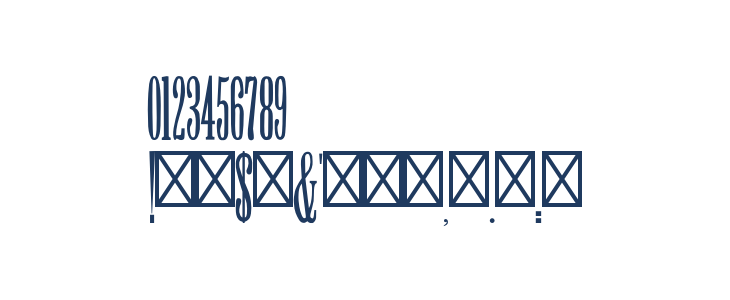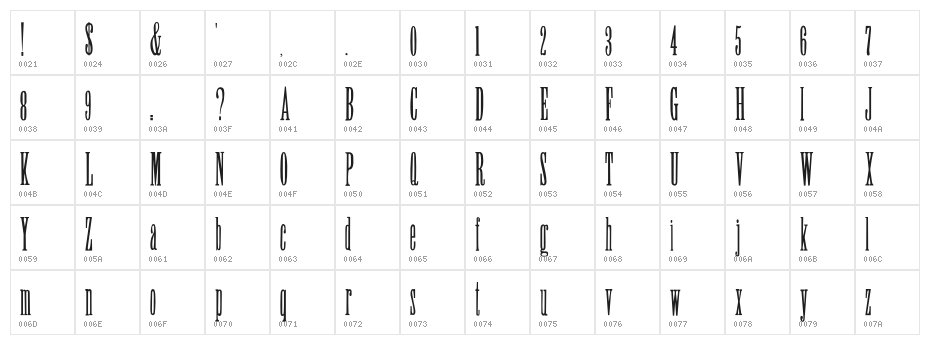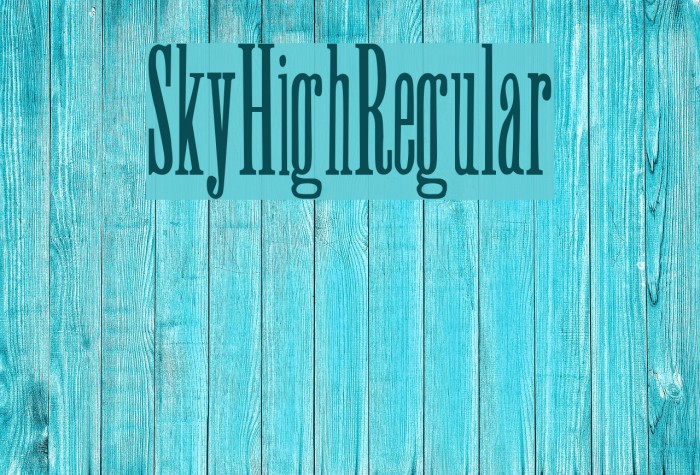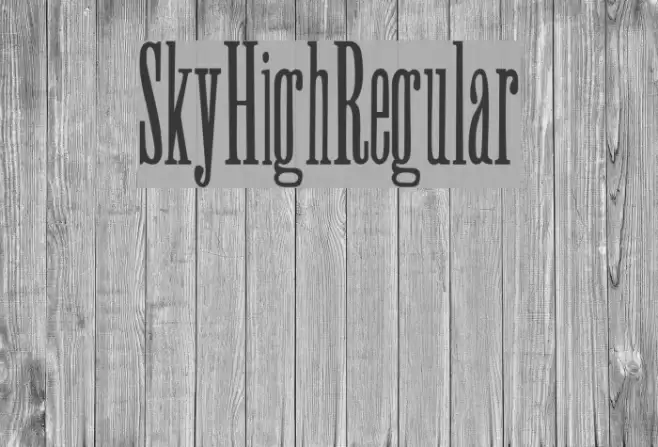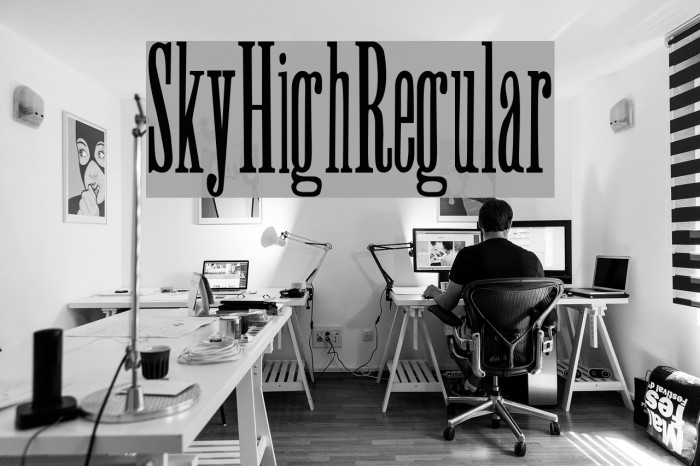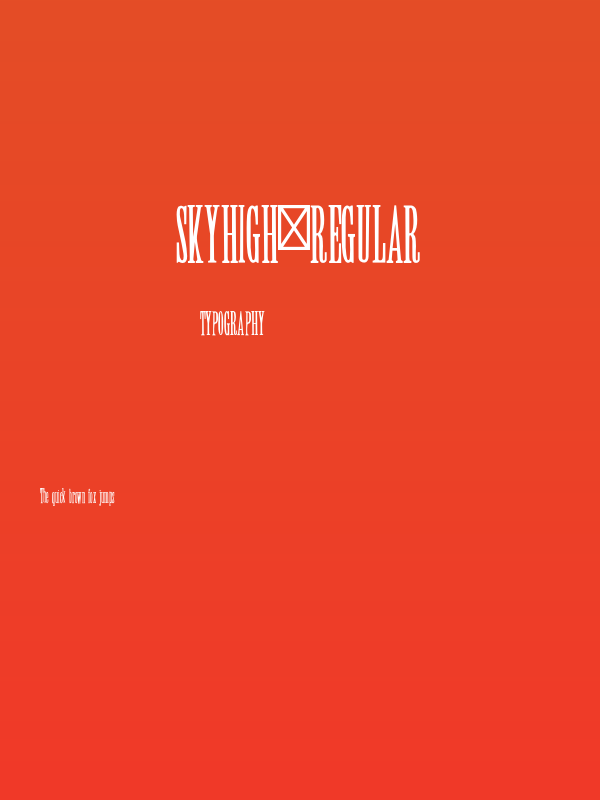
SkyHigh-Regular Font
SkyHigh-Regular Description
This font features a tall, narrow design with a distinct vertical emphasis, giving it a striking and modern appearance. The characters are elongated, creating a sense of height and elegance. The uppercase letters are particularly prominent, with a consistent stroke width that adds to the uniformity of the design. The lowercase letters maintain the same narrow structure, ensuring readability while preserving the overall aesthetic. The numbers follow the same style, making them easily distinguishable. Special characters are included, complementing the font's cohesive look. This font is ideal for projects that require a bold statement or a contemporary touch.
| Proposed Projects | Ideal for posters, headlines, branding, and editorial design. |